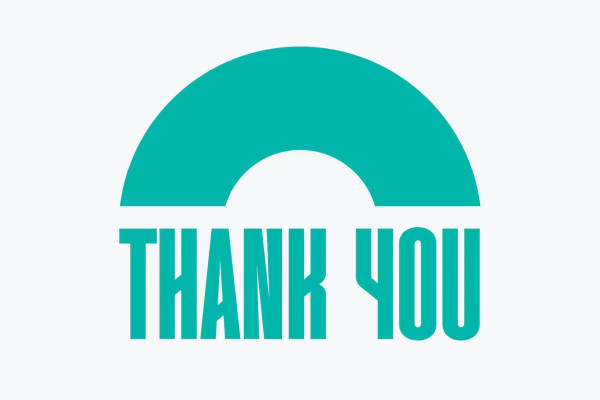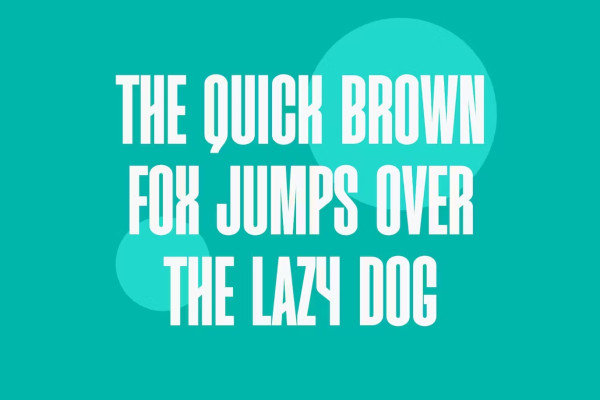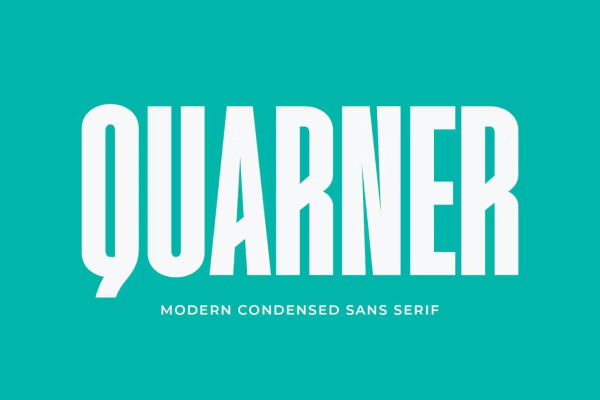
Quarner Font
Quarner Font, modern sans serif font with elegant style this is perfect for branding, logos, invitation, magazines, product packaging and more.